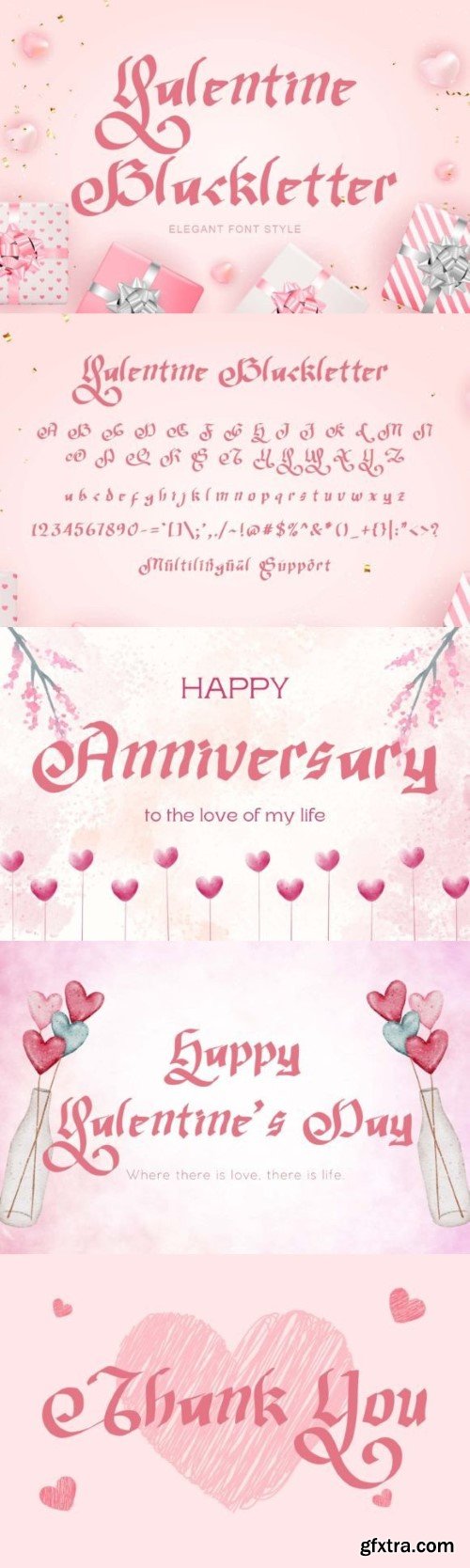
Valentine黑体字形
“Valentine Blackletter” is a unique and elegant blackletter font. This font is equipped with uppercase, lowercase, numerals, punctuation, and multilingual support. It is very suitable for Valentine’s Day, invitations, weddings, spring, summer, banners, branding, stickers, logos, and others.